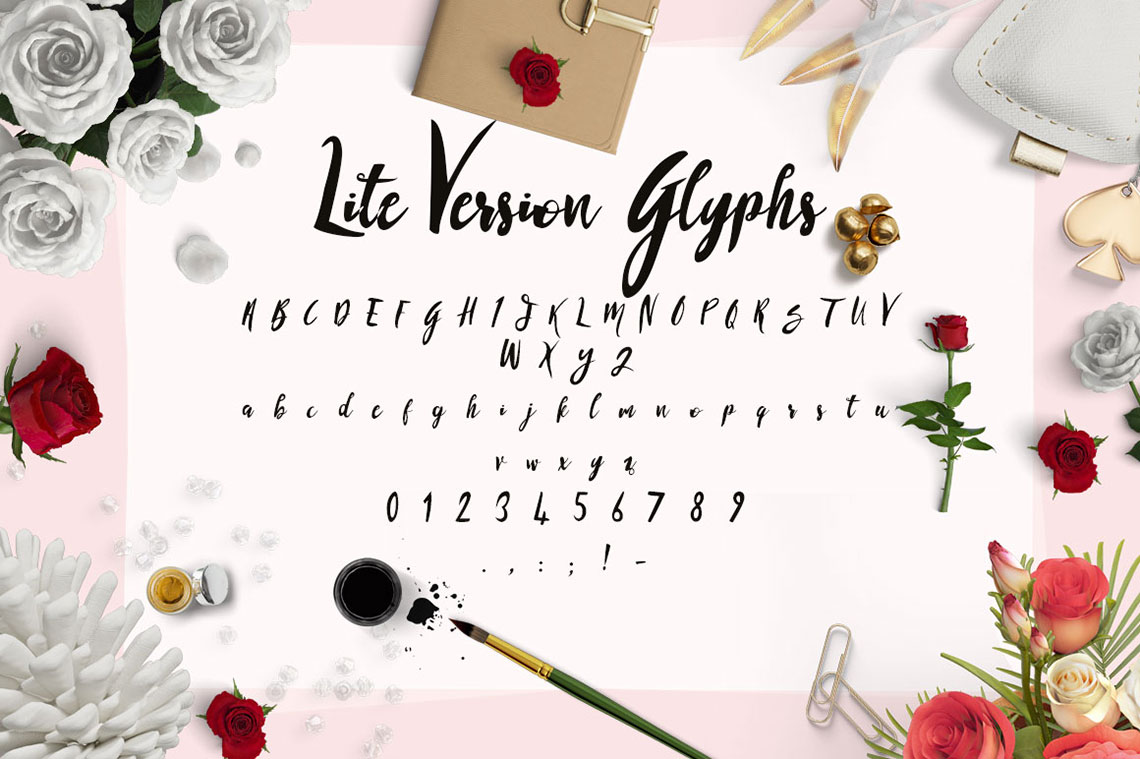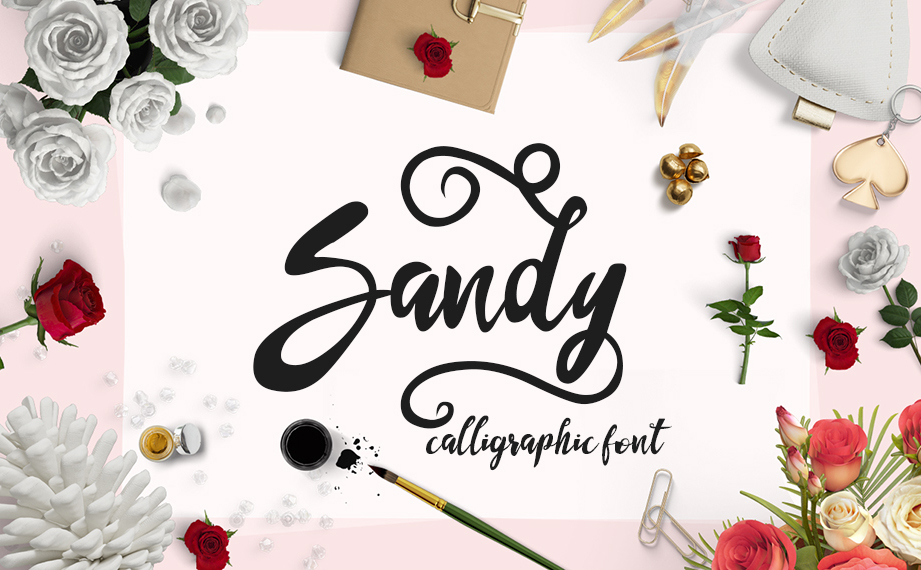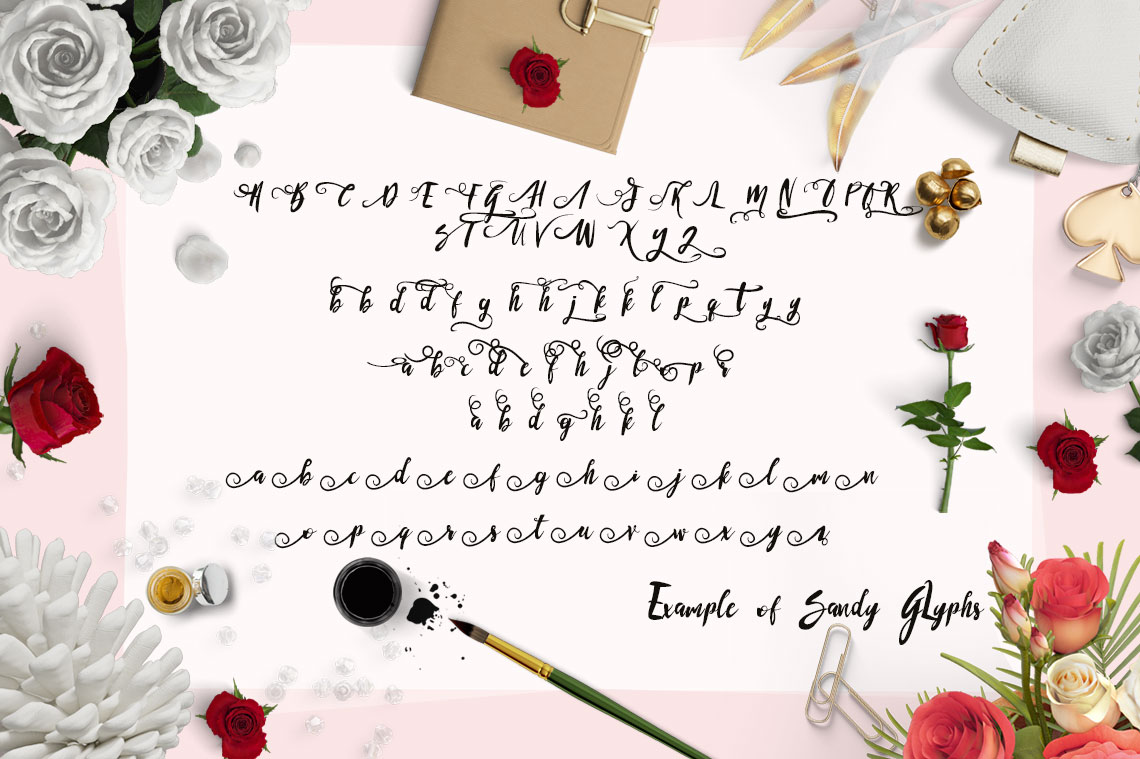
Sandy – A Free Calligraphic Font for Your Projects
• Lowercase Letters: a-z
• Uppercase Letters: A-Z
• Numbers: 0-9
• Punctuation: . , : ; ! -
• Total: 71 Glyphs
Ever felt like something isn’t right? While creating a banner or logo. Like something just doesn’t fit? This can be the font misfit! Not all fonts complement all designs but, the right font can transform a good design into a great design. DealFuel brings you –
Sandy – Handmade Free Calligraphic Font
It is carefully designed and nurtured to work in harmony with beautiful works of art.
Specifications Of This Free Calligraphic Font:
• Lowercase Letters: a-z
• Uppercase Letters: A-Z
• Numbers: 0-9
• Punctuation: . , : ; ! –
• Total: 71 Glyphs
Finding the right calligraphy font for your needs can be a hard and arduous task.
They are either too decorative and flashy for your simple designs or too simple and modern for your formal designs.
But don’t worry! Sandy calligraphy fonts are handmade, can compliment almost any kind of art and are best paired with a simple body font for balance. Use them sparingly so you don’t overpower your designs, or break the rules and see what you can create.